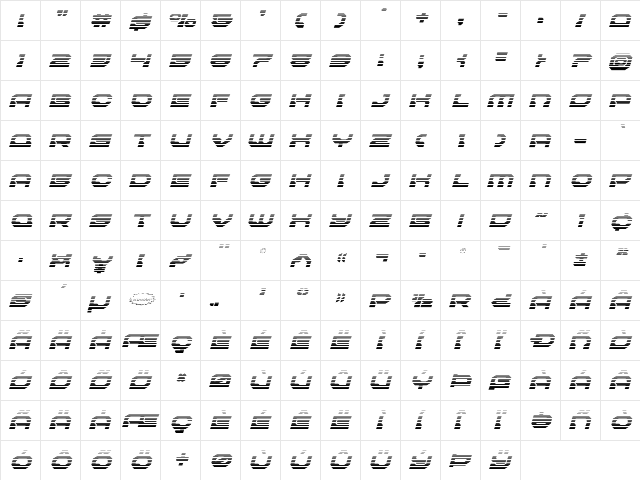
Pulsar Class Solid Gradient Italic Italic
Design Context for Pulsar Class Solid Gradient Italic Typeface
Pulsar Class Solid Gradient Italic takes a measured approach to typography — its balanced proportions and neutral character make it a reliable workhorse for both digital and print work. Its italic angle brings a sense of urgency and motion to the letterforms.
Pro Tip: Try Pulsar Class Solid Gradient Italic for annotation and caption copy alongside an upright companion — the contrast in angle creates a dynamic but ordered typographic system.